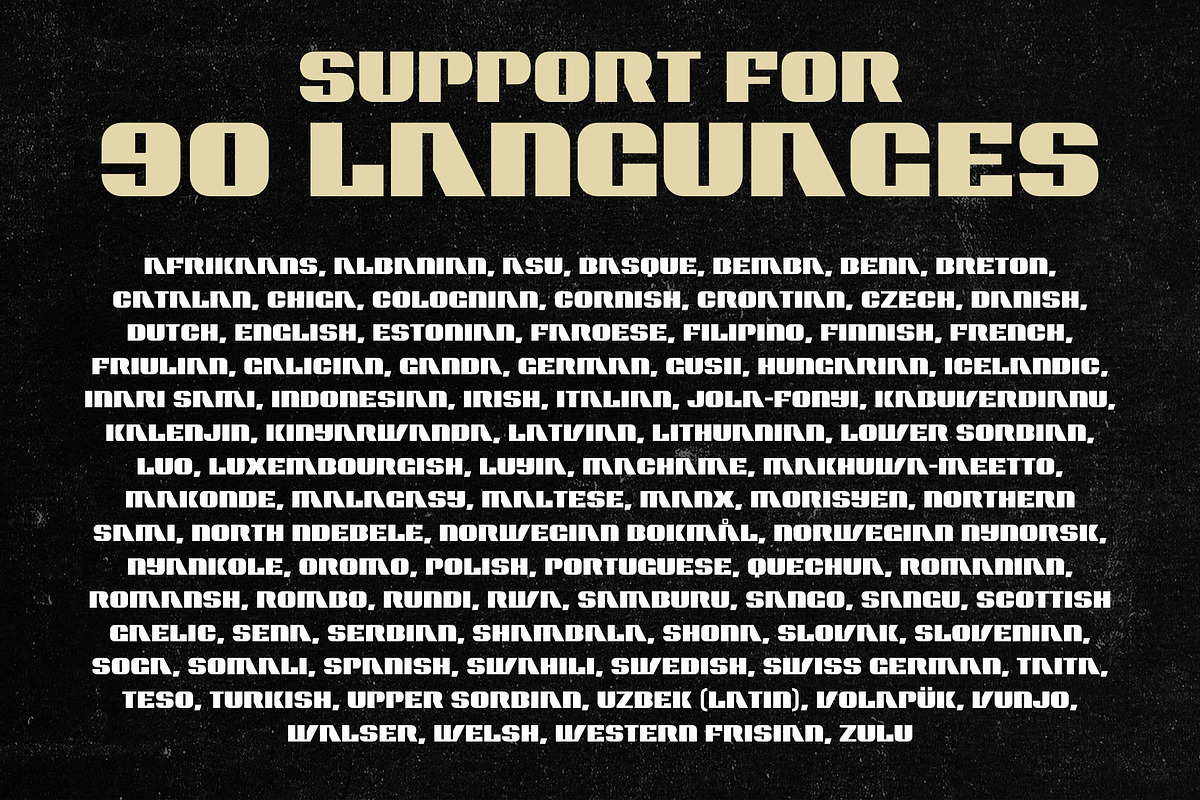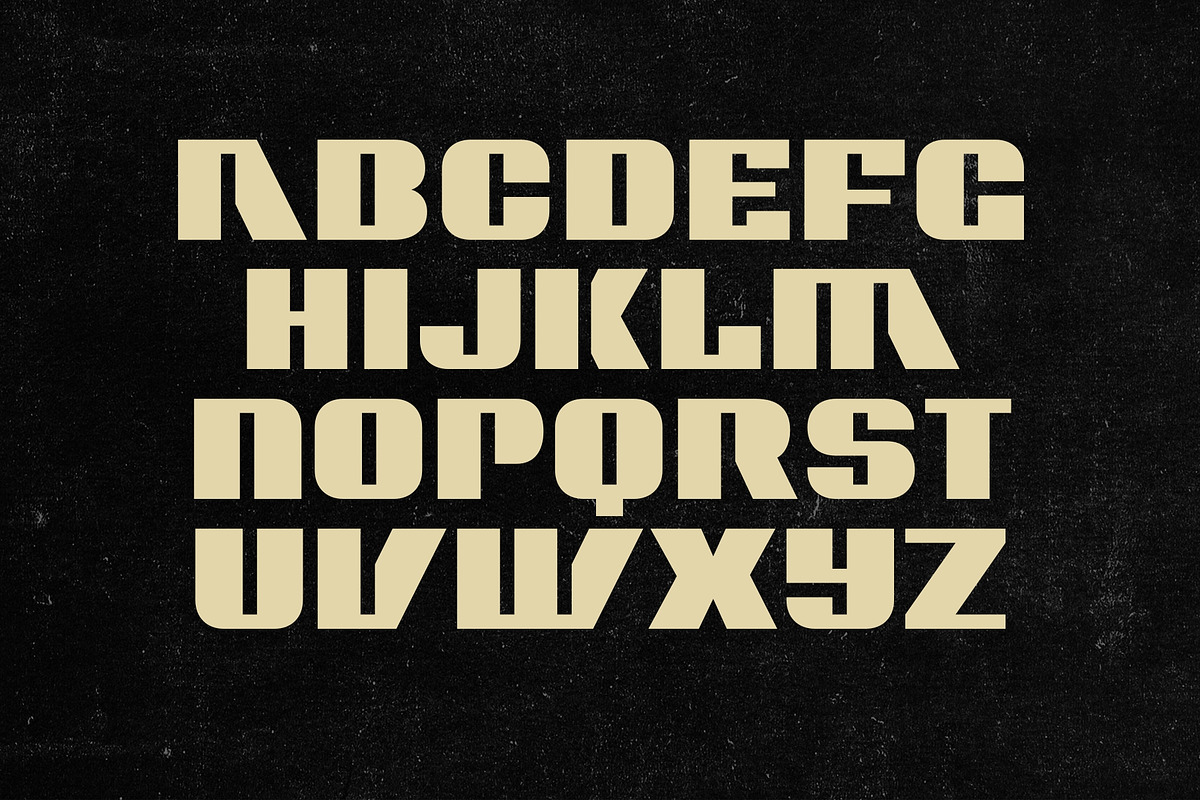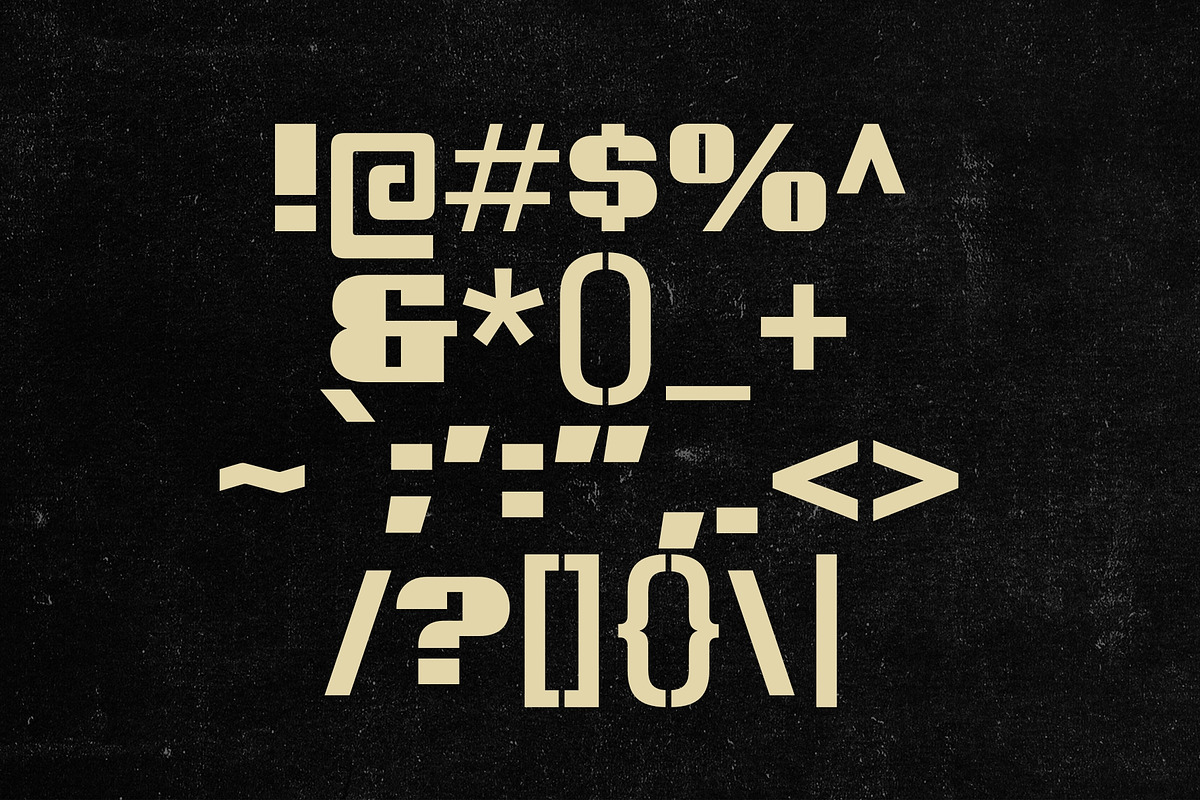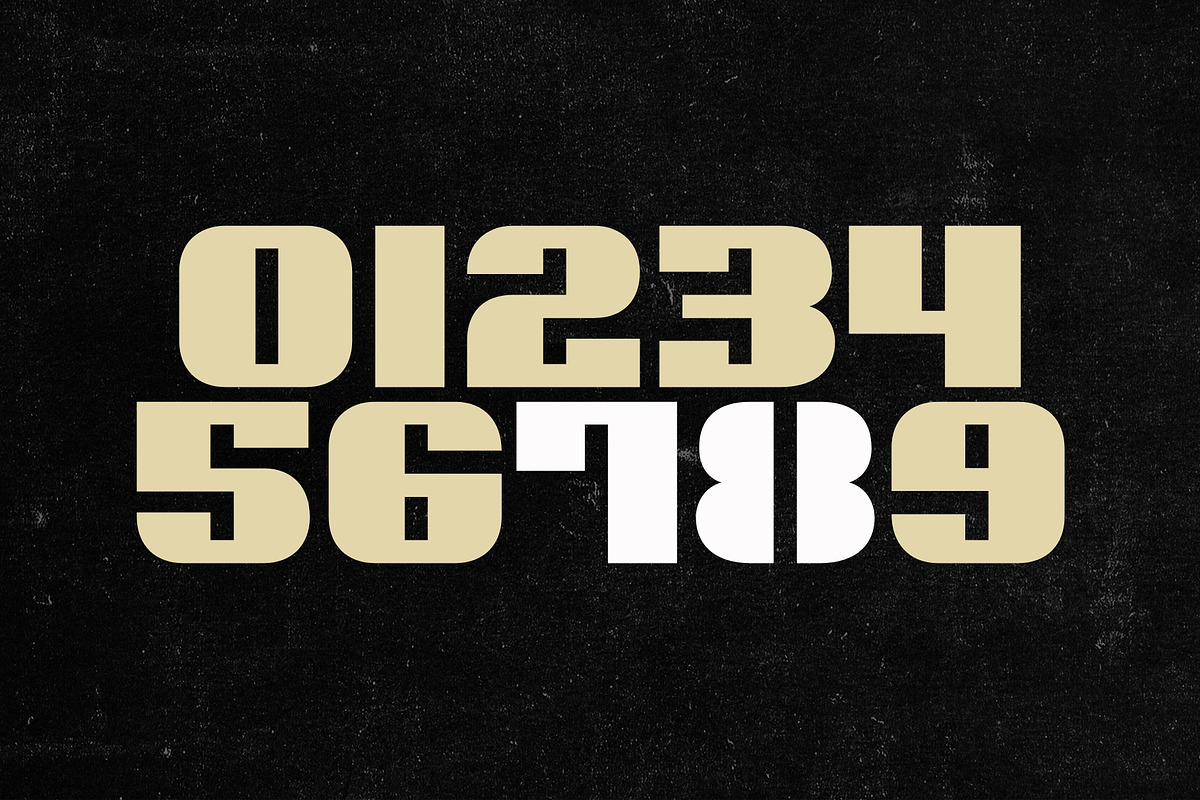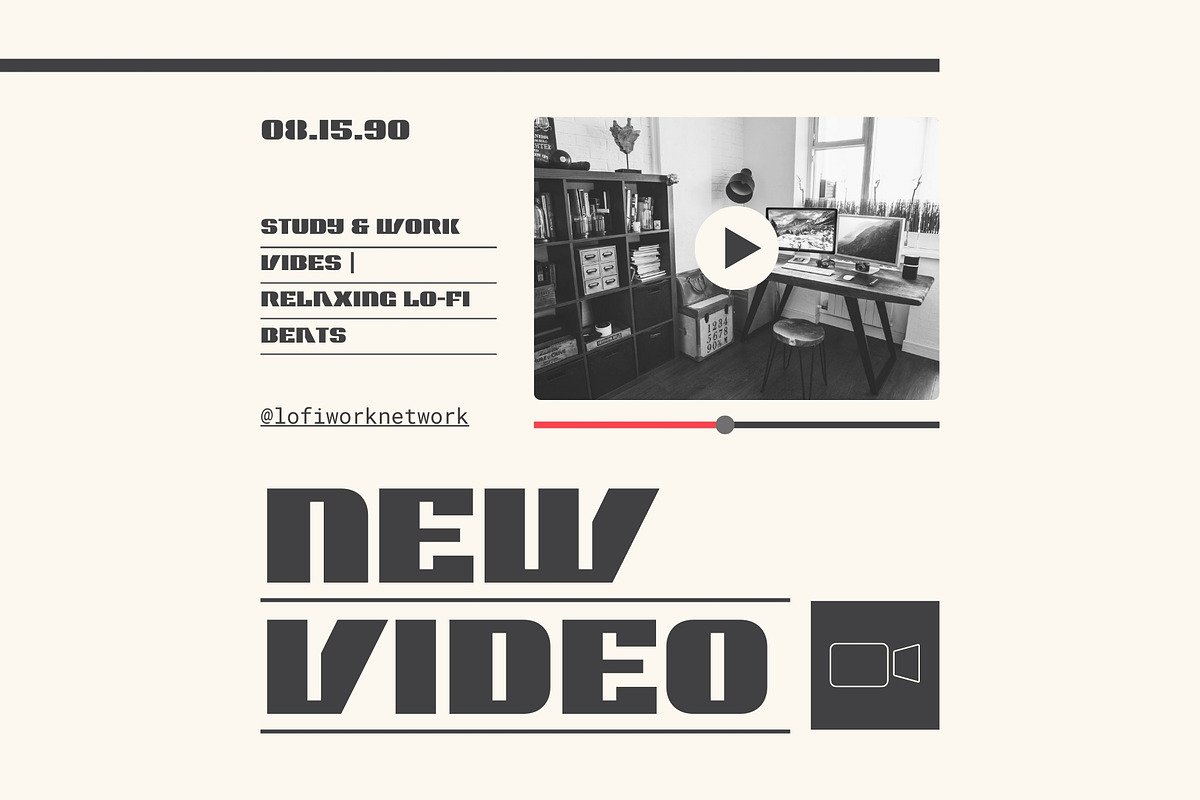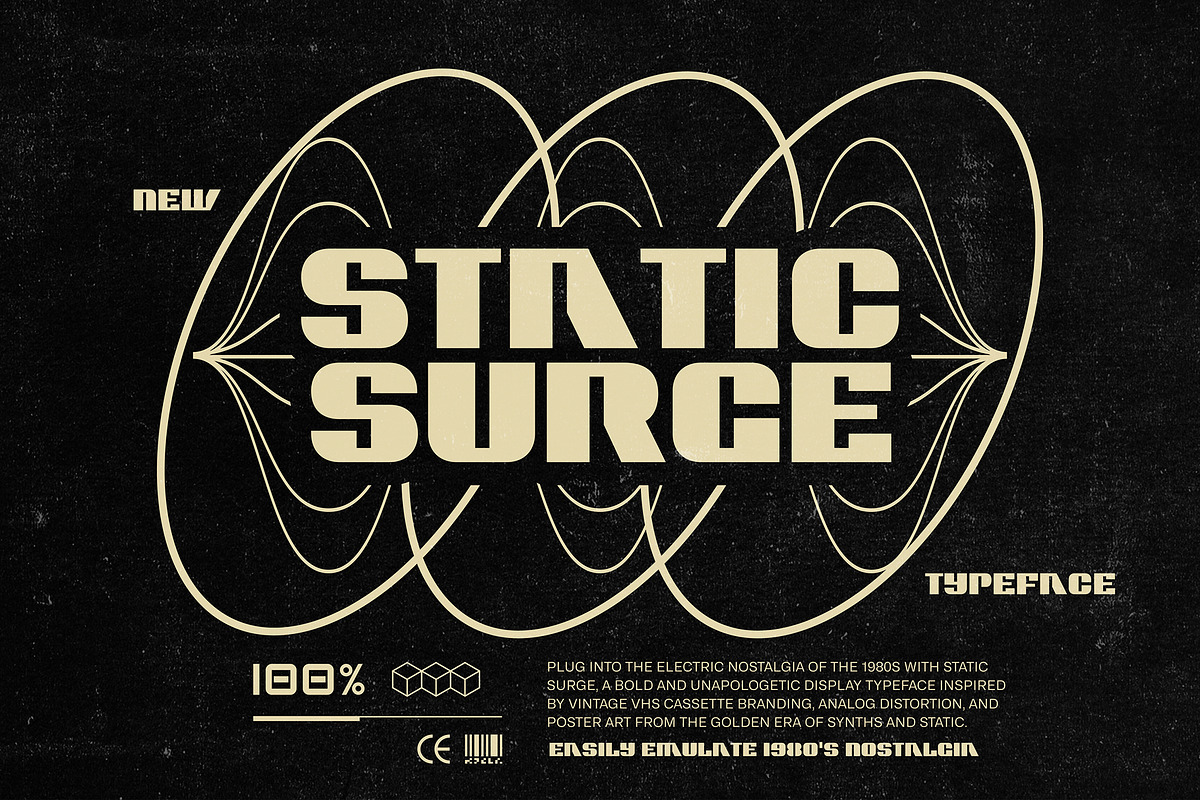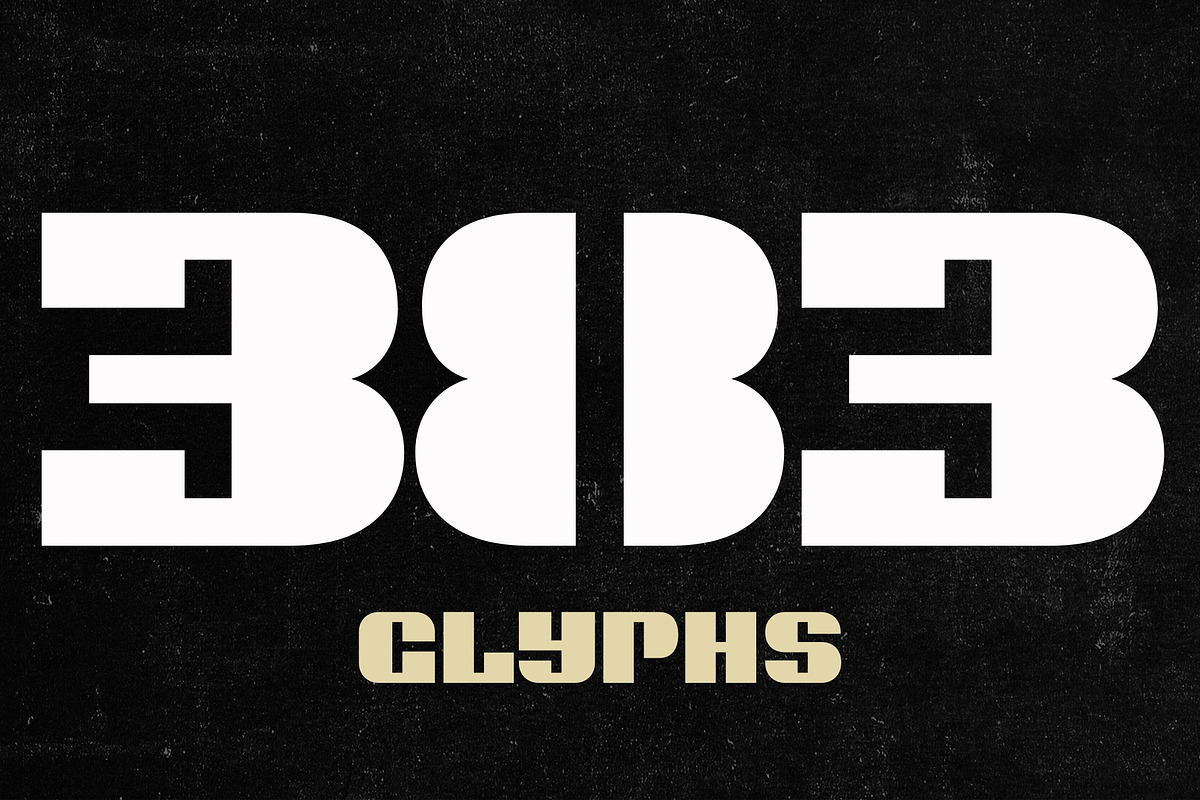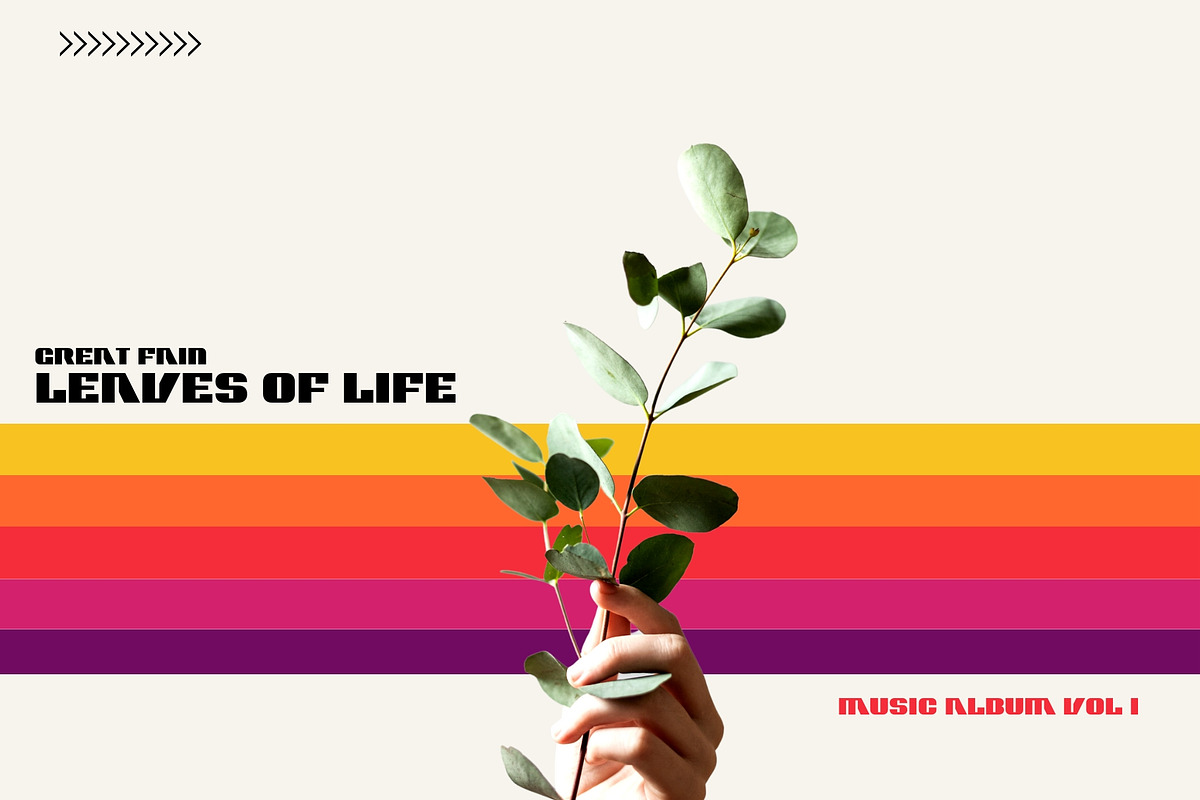
Static Surge - Nostalgic 1980's Type
Plug into the electric nostalgia of the 1980s with Static Surge, a bold and unapologetic display typeface inspired by vintage VHS cassette branding, analog distortion, and poster art from the golden era of synths and static.
With sharp edges, strong lines, and just the right amount of retro grit, Static Surge channels the raw energy of old-school video tapes, neon-lit arcades, and sci-fi movie marathons. Whether you're designing for a throwback campaign, a retro game, or eye-popping merch, this font delivers pixel-punching impact every time.
⚡ Perfect for:
- 80s-inspired posters & flyers
- VHS-style branding
- Album covers & mixtapes
- Synthwave & outrun visuals
- Apparel, logos, and packaging
Load up Static Surge, hit play, and let the analog vibes take over.